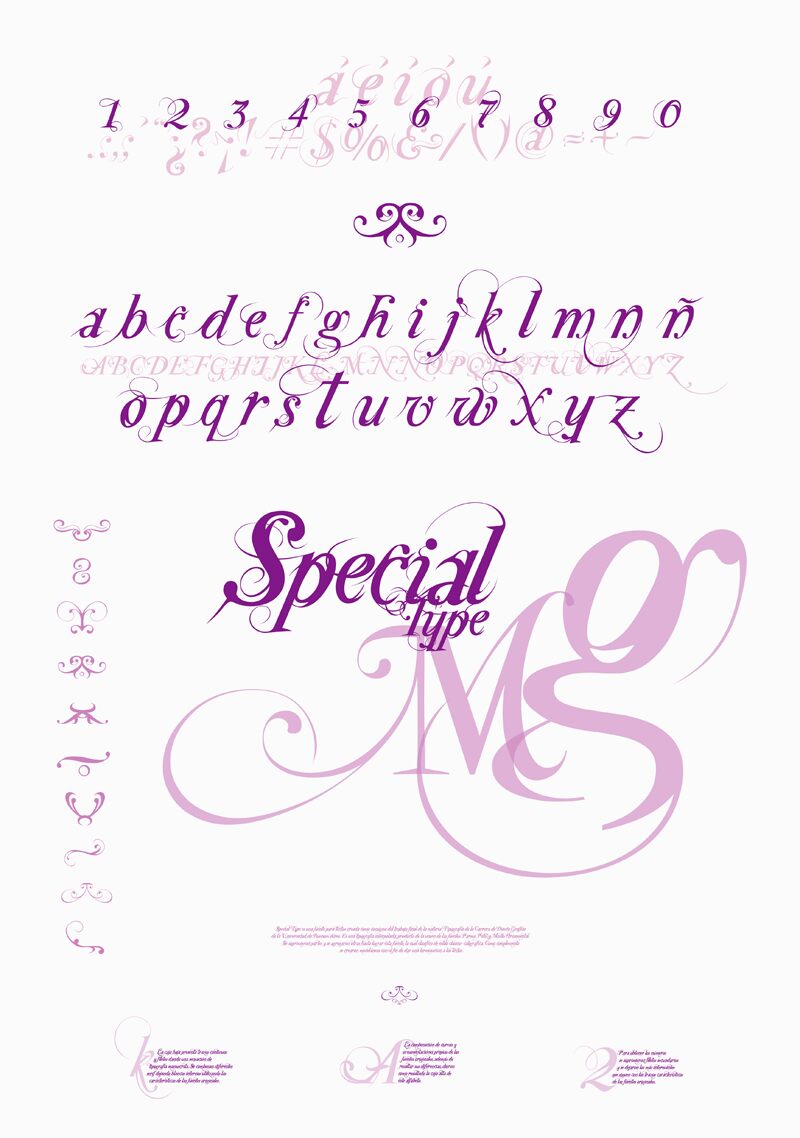
Special Type by Gisela Silvana Caruso is a free ornamental calligraphy font with large, sweeping, theatrical curves. Strong thick-and-thin strokes give the letters a formal silhouette, and long flourishes curl through and around the bold main forms. The result feels dramatic rather than delicate.
Wedding invitations are its clearest setting, especially for names and prominent lines meant to feel ceremonial. Luxury packaging also suits this elaborate penwork. Fashion branding and event posters make sense for bridal, beauty, or boutique audiences that expect decorative lettering to become part of the imagery.
Special Type
Gisela Silvana Caruso